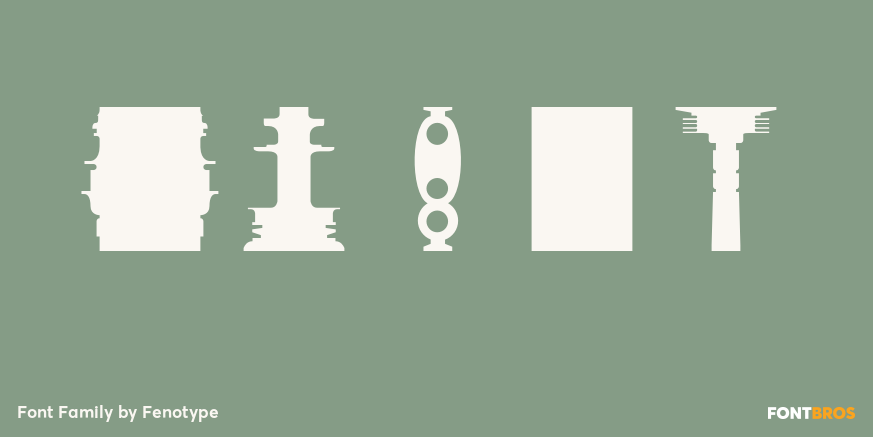
Tower
About Tower
Tower was originally created as a school assignment at the University of Industrial Art & Design Helsinki in 2006. Tower is an experimental dingbat font. Try writing different kind of towers: set font size and leading the same and start experimenting!…